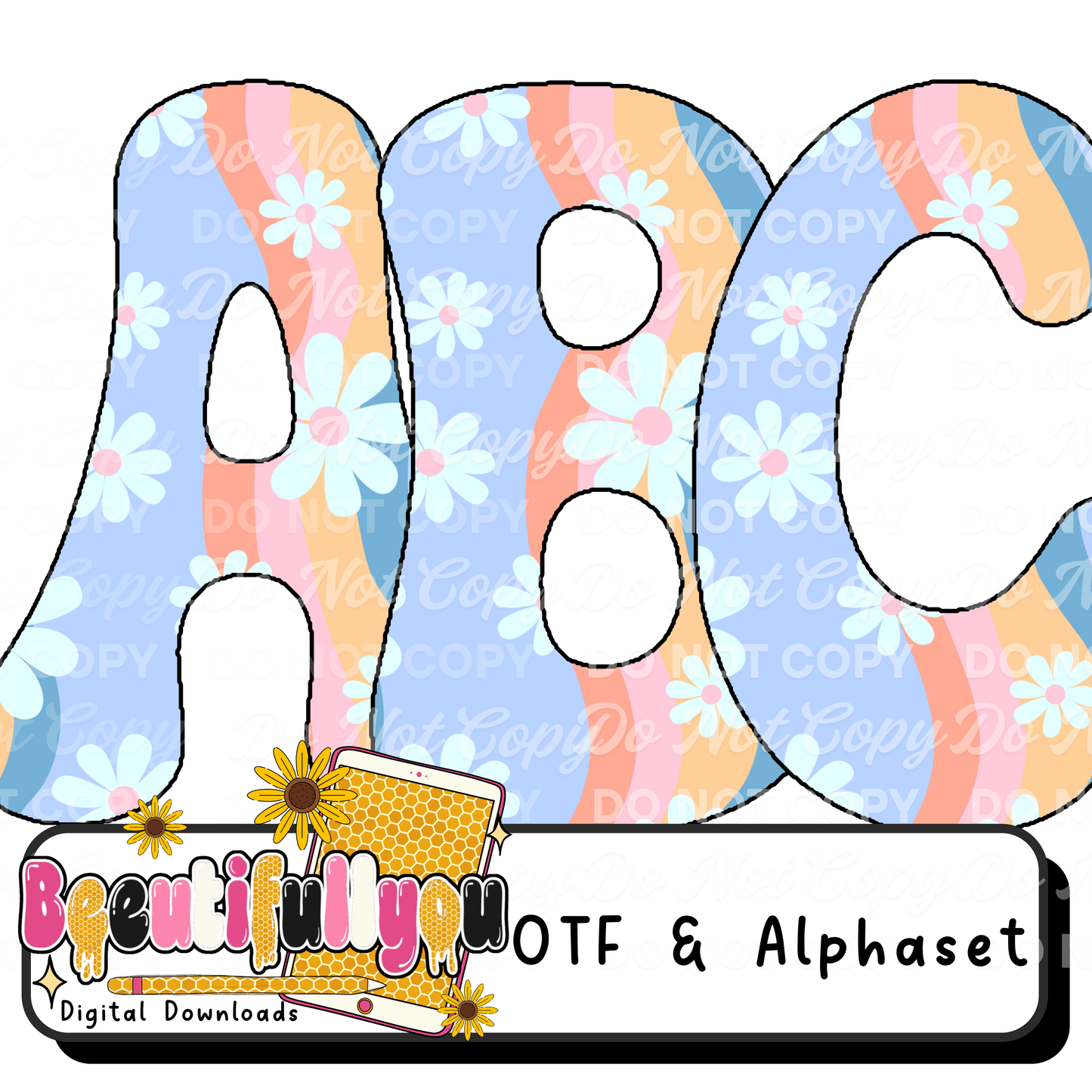
Retro Daisy Font OTF | Groovy Flower Alphabet | 70s Bubble Font | Hippie Retro Lettering | Cute Floral Font Download
🌼✨ Say hello to your new favorite retro font!
This groovy daisy-filled alphabet is packed with soft wavy stripes, pastel tones, and playful floral elements that give major 70s vibes. Perfect for trendy, fun, and eye-catching designs that stand out instantly 💖
• Colors/pattern shown are part of the font style